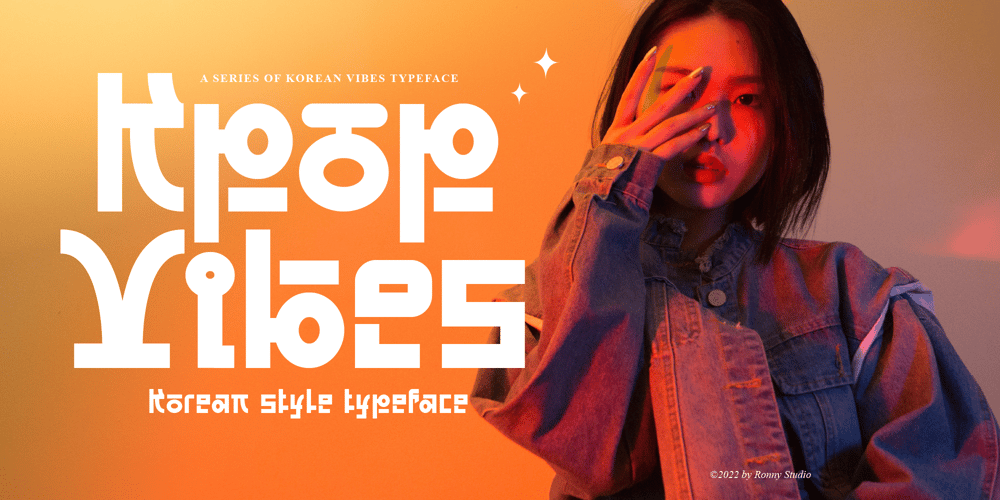
Kpop Vibes
Kpop Vibes font
Kpop Vibes Font Family was designed by Rony Rizki Jaya and published by Ronny Studio. Kpop Vibes contains 2 styles and family package options. Inspired by the emerging Korean culture that grabbing the worldwide actuation in so many realms of the industry. To bridge the vibes and to make it easier to consume, we found the gap to fill with simple things in life that are useful for it, and yes, it’s a new day it’s a new font.So without any further ado, please welcome Kpop Vibes. series of Korean vibes typefaces. It’s a sans-serif font with bold and strong vibes to catch up with today’s graphic design trends.2 Font Style:- Regular- ItalicKpop Vibes Features:- Uppercase- Lowercase- Numbers & Punctuation- Alternate Style- Multilingual Support- Simple installationAll features and special characters of this font are included in one file. So that it is easily accessible by using a program or software that supports opentype such as Adobe Illustrator, Adobe Photoshop, and Adobe Indesign). This font is also very easy to use as it is compatible for all supported software even for non-opentype.Please comment us if you have any questionsThank you and have a nice day.Thank You